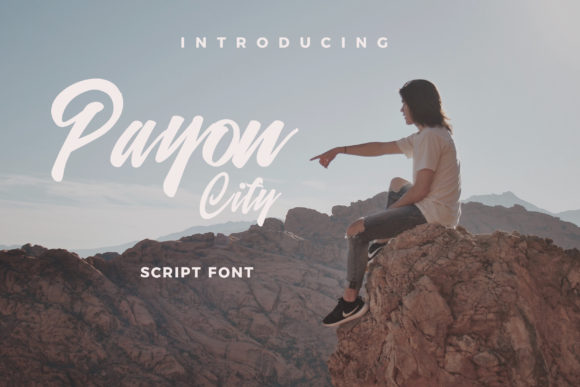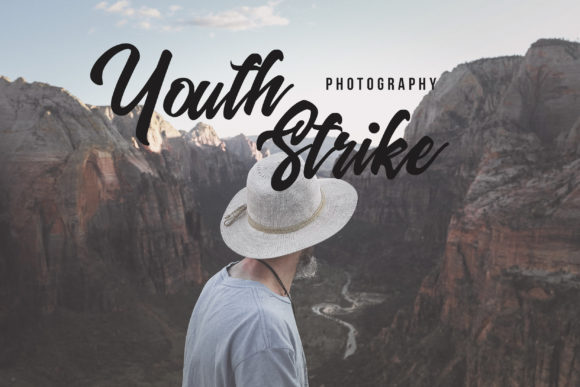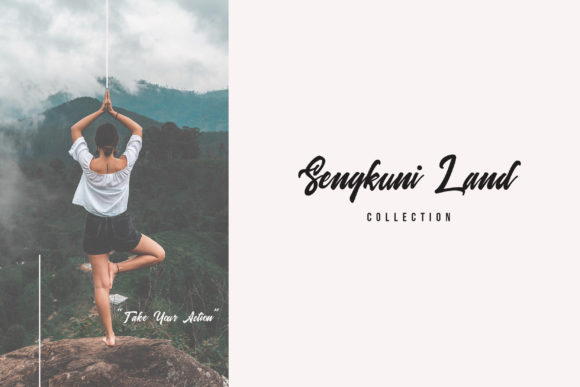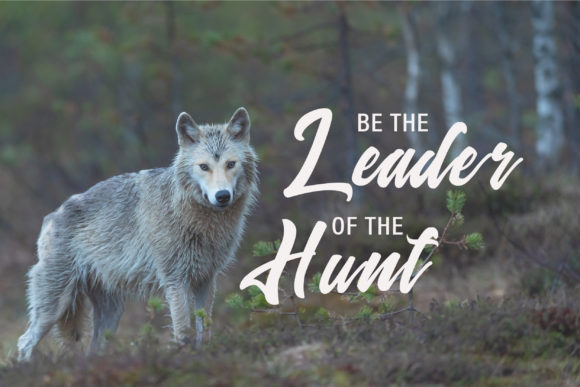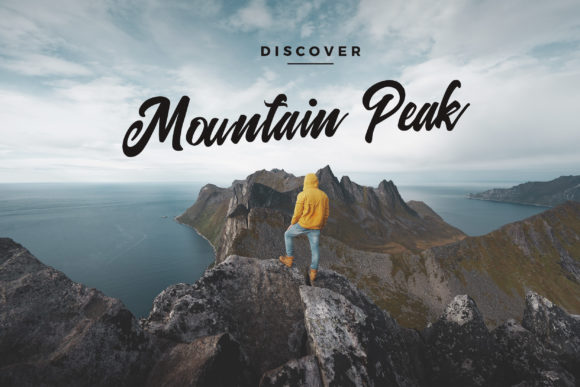
Payon City Font
About Payon City Font
Payon City is a cute and inspiring handwritten font with a stunning feel. Use it to turn any design project into a unique feel.